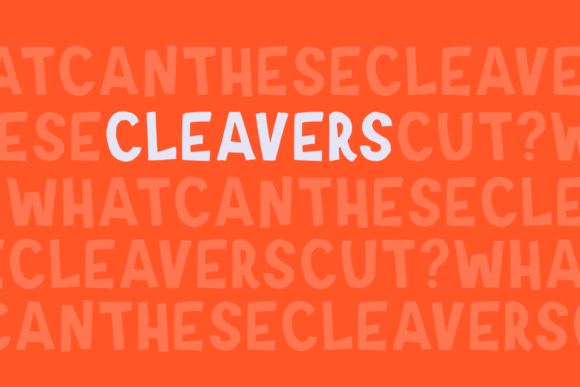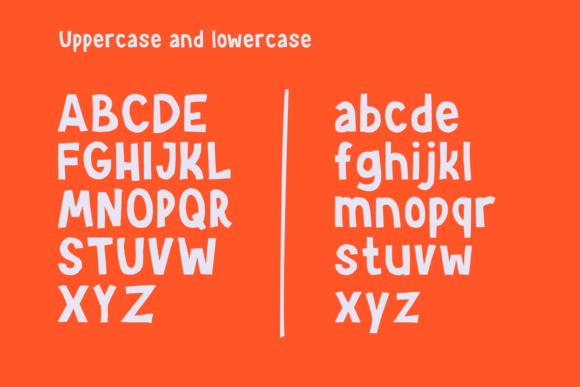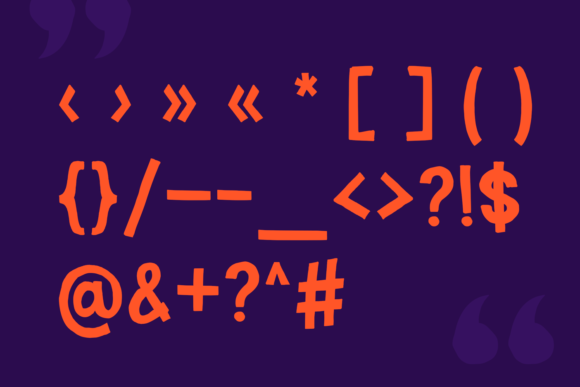
Cleavers Font: The Ultimate Choice for Fun and Playful Designs
Are you looking for a font that can add a touch of playfulness and fun to your designs? Look no further than Cleavers Font! This cool, adaptable, and fun display font is perfect for cartoon-related designs, children’s games, and any creation that requires a lovely touch. In this article, we’ll dive into the world of Cleavers Font and explore its features, benefits, and uses.
What is Cleavers Font?
Cleavers Font is a display font designed to bring a sense of fun and playfulness to your designs. Its unique and quirky style makes it perfect for designs that require a personal touch. The font is carefully crafted to be adaptable and versatile, making it suitable for a wide range of projects, from children’s books and games to cartoon-related designs and more.
Key Features of Cleavers Font
- Unique and Quirky Style: Cleavers Font has a one-of-a-kind style that sets it apart from other fonts. Its fun and playful design makes it perfect for designs that require a personal touch.
- Adaptable and Versatile: The font is designed to be adaptable and versatile, making it suitable for a wide range of projects, from children’s books and games to cartoon-related designs and more.
- Easy to Read: Despite its playful style, Cleavers Font is easy to read, making it perfect for designs that require a clear and concise message.
- High-Quality Design: The font is carefully crafted to ensure high-quality design, making it perfect for professional designs.
Benefits of Using Cleavers Font
So, why choose Cleavers Font for your designs? Here are just a few benefits of using this amazing font:
- Adds a Touch of Personality: Cleavers Font adds a touch of personality to your designs, making them stand out from the crowd.
- Perfect for Children’s Designs: The font’s playful style makes it perfect for children’s books, games, and other designs.
- Increases Engagement: The font’s fun and playful style can increase engagement and make your designs more appealing to your audience.
- Easy to Pair with Other Fonts: Cleavers Font is easy to pair with other fonts, making it perfect for designs that require a combination of fonts.
Uses of Cleavers Font
Cleavers Font is a versatile font that can be used for a wide range of projects, including:
- Children’s Books and Games: The font’s playful style makes it perfect for children’s books and games.
- Cartoon-Related Designs: Cleavers Font is perfect for cartoon-related designs, including logos, posters, and more.
- Logos and Branding: The font’s unique style makes it perfect for logos and branding designs that require a personal touch.
- Posters and Flyers: Cleavers Font can be used to create eye-catching posters and flyers that grab attention.
In conclusion, Cleavers Font is a cool, adaptable, and fun display font that is perfect for designers and crafters looking to add a touch of playfulness to their designs. Its unique and quirky style, adaptability, and ease of use make it a great choice for a wide range of projects. Whether you’re designing a children’s book, a cartoon-related design, or just need a font that adds a personal touch, Cleavers Font is an amazing choice.